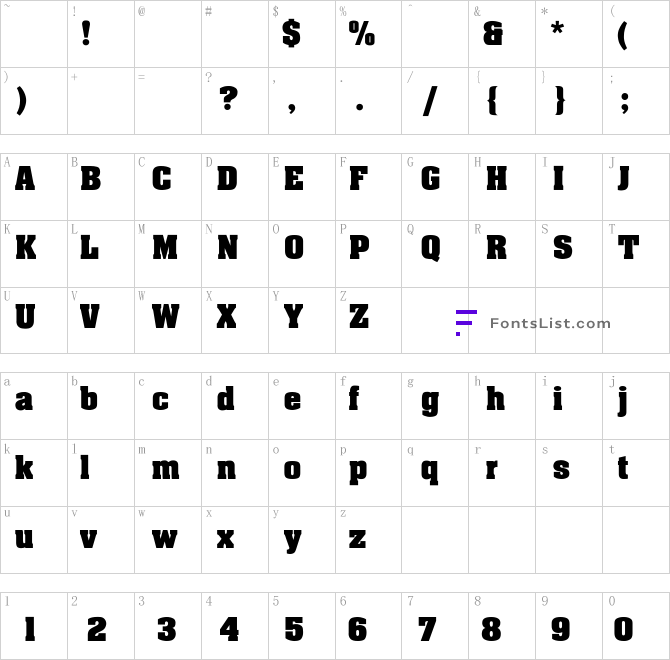
Aachen-Light.ttf is a very beautiful artistic font, Aachen-Light.ttf is widely used in the design and printing of various books and pictures,Aachen-Light.ttf has a strong visual impact,Aachen-Light.ttf is a commonly used font in newspapers, magazines and books, and is used in posters, e-commerce Poster design, store design, logo design, font design and other fields.Aachen-Light.